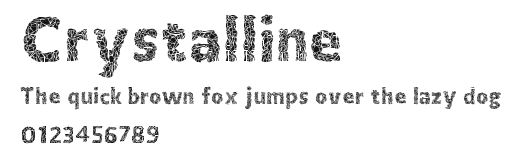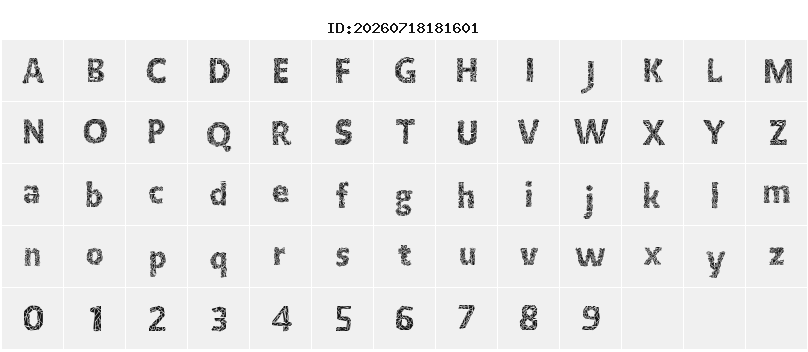
• Font Name: Crystalline
• Font Style: Negative
• Full Font Name: Crystalline Negative
• Designer: Arthur Reinders Folmer
About Crystalline.ttf
Crystalline.ttf is a modern, elegant sans-serif font designed for ultimate readability and visual harmony. Perfect for branding, headlines, web design, and print materials.